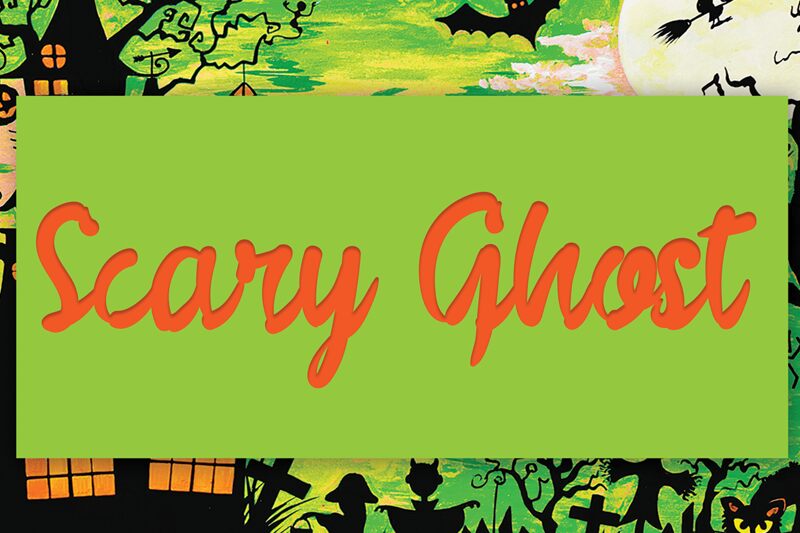
Scary Ghost
Scary Ghost, designed by Belina Studio, is a captivating brush font that adds an eerie touch to any project. With its semi-bold weight and unique brush style, this font is perfect for spooky Halloween invitations, horror movie posters, or haunted house flyers. Its handcrafted feel and hauntingly beautiful letterforms make it ideal for creating chilling headlines or mysterious book covers. Scary Ghost will bring your designs to life with its ghostly charm and leave a lasting impression on your audience. Explore the supernatural possibilities with this bewitching typeface today!